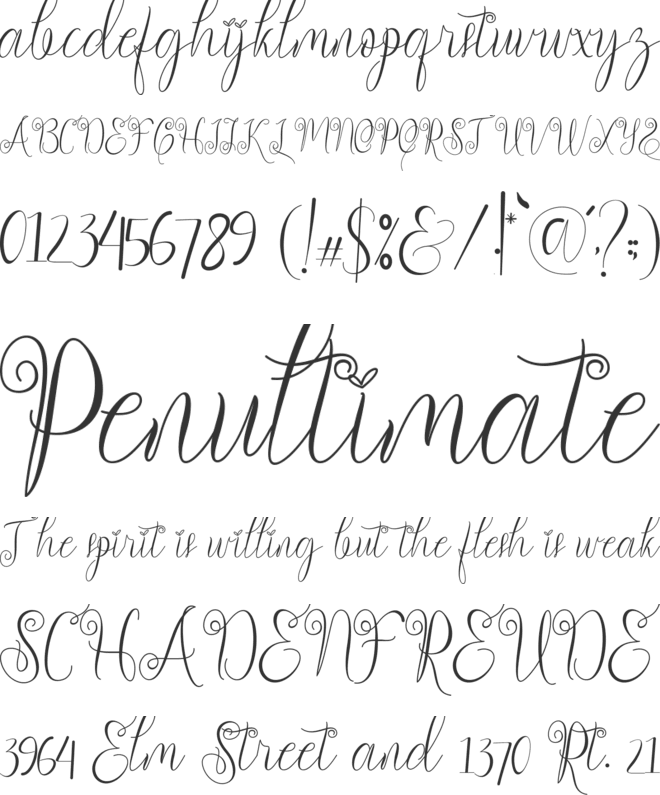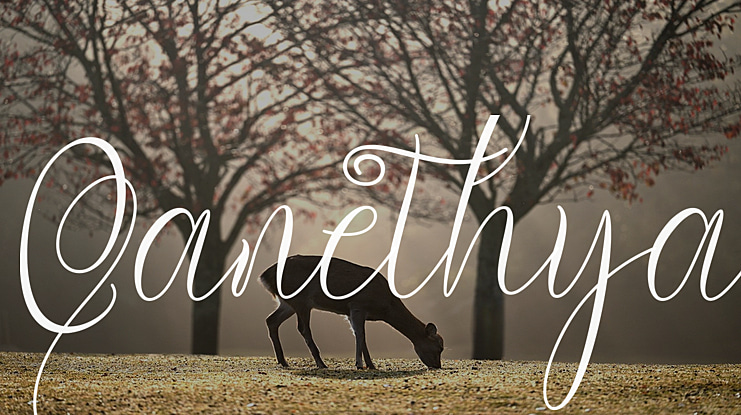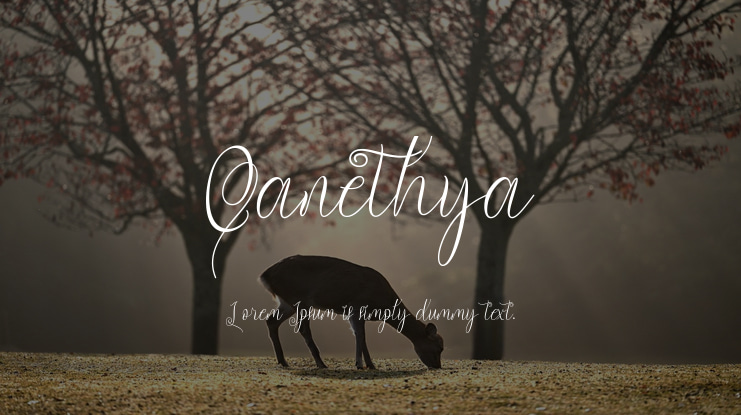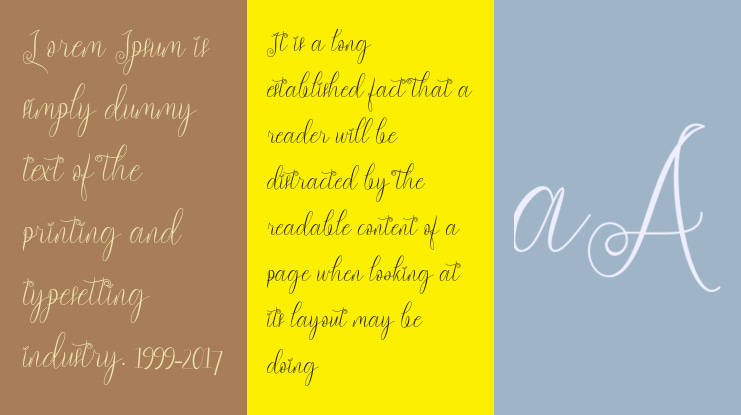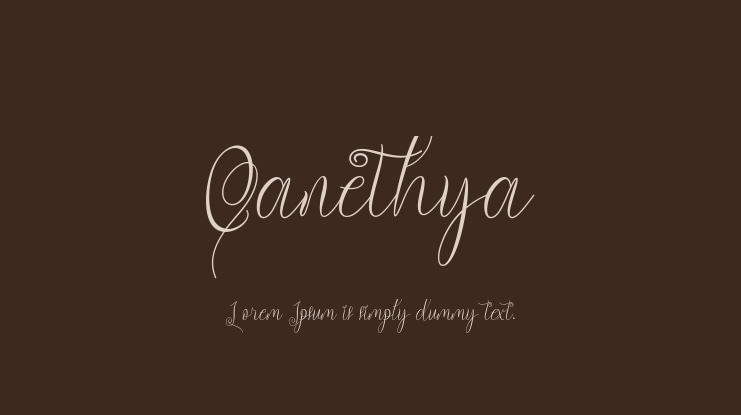
Qanethya Font
Yoga Letter 2020 (Isroni Yoga Prasetya)
Qanethya is a modern handwritten font that is made with a subtle touch resulting in a high quality font. This font is very beautiful and elegant which is suitable for all kinds of your work. This font is perfect for all wedding needs (wedding invitations, wedding photography, decorations, and other wedding designs). It is also suitable for promoting your business (hotels, villas, vacation spots, products, services or other promotions. Also suitable for promo updates, logos, branding, posters, or status updates on social media, christmas, winter, valentine's day and others.